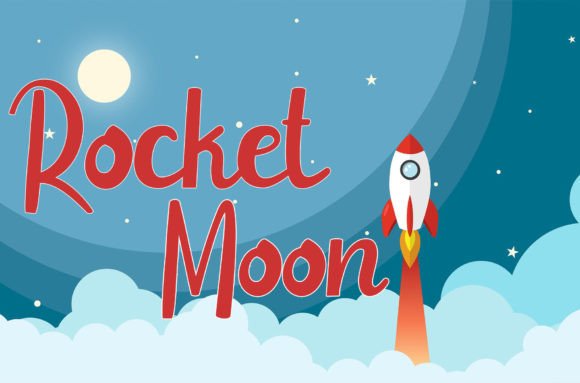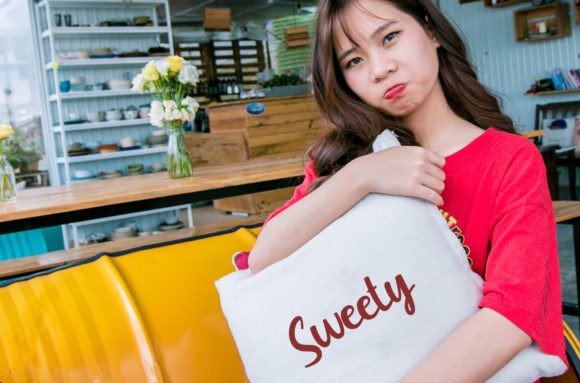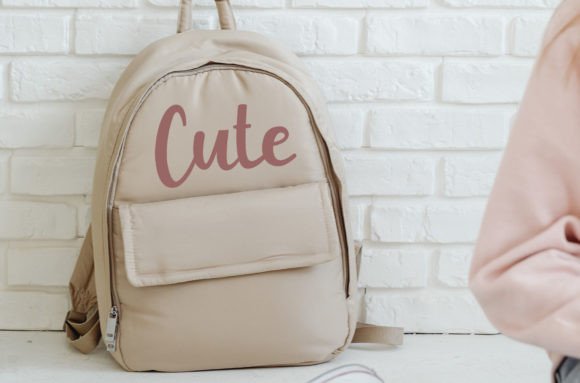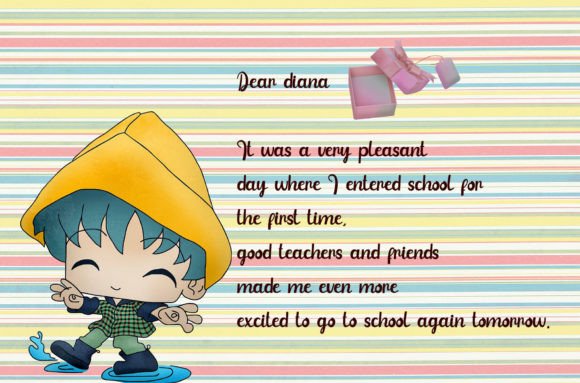
Orange Font
Introducing Orange Font
The Orange Font is a beautiful and fun handwritten typeface known for its playful and quirky style. This font offers a visually appealing and versatile option that can enhance the aesthetics of various design projects. Its charm lies in its ability to convey a sense of fun and playfulness with its quirky handwritten script.
Why Choose This Typeface?
• Playful and Quirky: Orange adds a touch of whimsy and creativity to your designs, making it suitable for children’s themed designs, posters, invitations, branding materials, and more.
• Versatile Usage: This font provides a visually captivating choice for various creative endeavors, allowing you to infuse your designs with joy and creativity.
Applications of Orange
• Children’s Designs: Use this font to create engaging content that captures attention.
• Invitations: Enhance your invitations with a playful style that conveys warmth.
• Branding: Perfect for adding a casual script aesthetic to branding materials and other creative projects.
The Impact of Using Orange
This font elevates your designs by making them visually captivating and memorable. It becomes a reliable tool for designers seeking to create projects that stand out with playfulness. Its balanced form ensures your designs are both lively and captivating.
The Value It Brings
This typeface excels in combining contemporary design aesthetics with casual elegance. By choosing Orange, you ensure your designs are not only visually appealing but also engaging and unique.
This font is also ideal for various creative projects beyond traditional uses. It can enhance digital designs with its cheerful flair, making it suitable for websites, brochures, or mobile interfaces. The Orange Font adapts well to different screen sizes while maintaining its charm. As design trends evolve, this font remains relevant due to its timeless appeal, balancing style with functionality effectively.